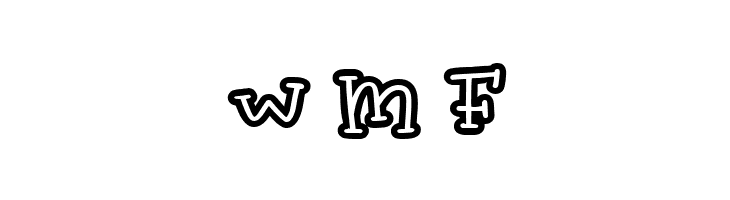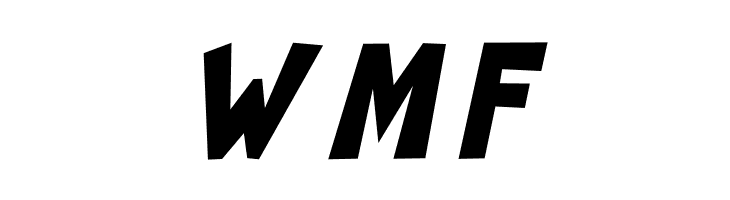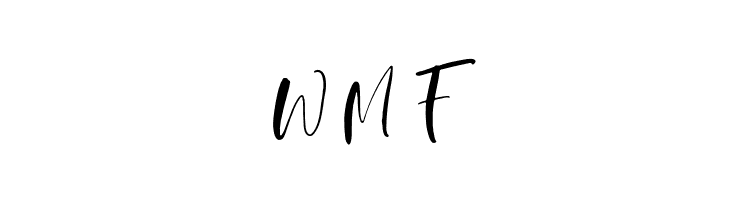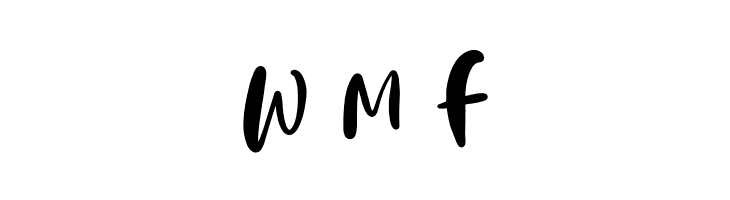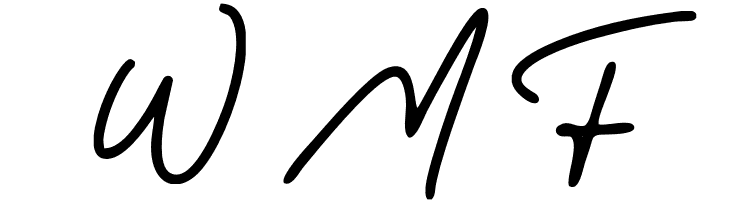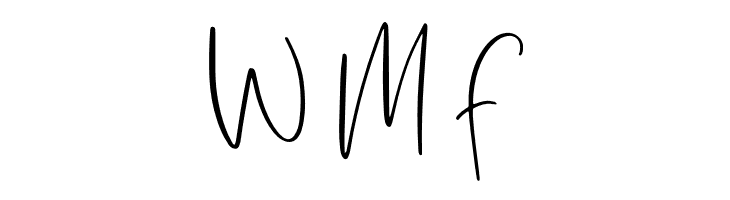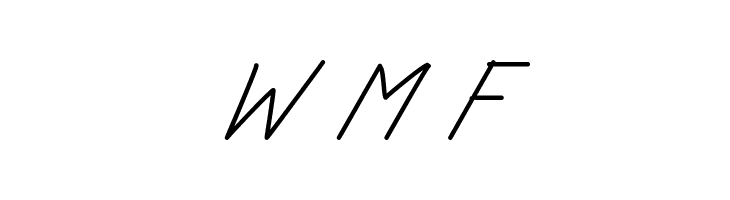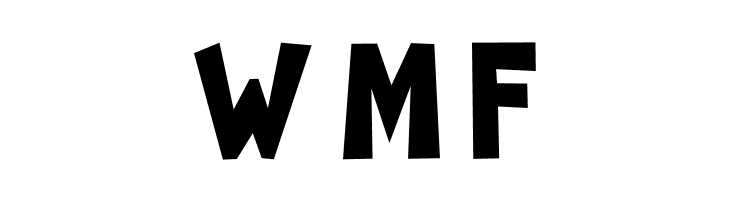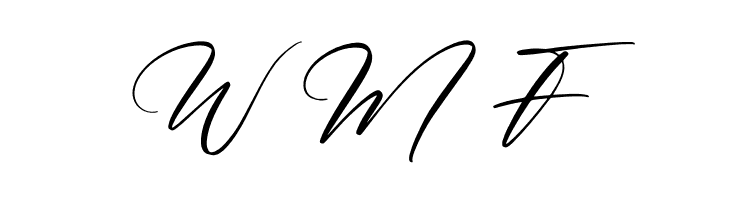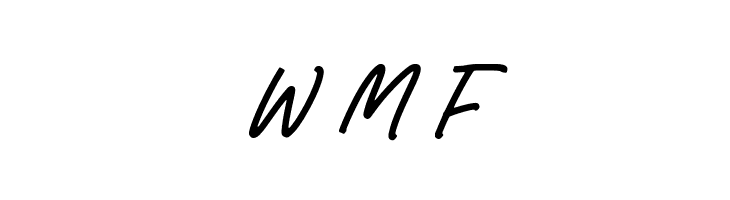
A bold, playful, and slightly italicized font with rounded characters.
A playful, bold, and cartoonish font with a thick outline and lively style.
A playful, bold font with thick, rounded strokes and a friendly appearance.
A playful, bold font with thick, uneven strokes and a whimsical style.
A bold, italic, and playful font with a dynamic slant.
A bold, italicized font with a playful and dynamic style.
A lively, flowing script font with elegant curves and connected strokes.
A bold, playful handwritten font with fluid strokes and a lively appearance.
A lively, handwritten font with fluid strokes and a playful, casual style.
Elegant handwritten script font.
A flowing, cursive script font with elegant, interconnected characters.
A playful and artistic font with bold, irregular letterforms.
A graceful script font with flowing, ornate characters.
A modern, elegant script font with flowing, connected strokes.
A dynamic, expressive handwritten script with fluid, interconnected letterforms.
A dynamic handwritten font with fluid, interconnected strokes.
An elegant and flowing script font with graceful curves and sophisticated swashes.
A playful and whimsical script font with smooth, flowing curves.
A playful, handwritten script font with a whimsical style.
A bold, fluid script font with interconnected, expressive strokes.
A relaxed, handwritten script with a friendly and informal style.
A playful, bold handwritten font with rounded, irregular letterforms.
A charming and elegant script font with flowing, cursive letterforms.
A flowing, handwritten font with elegant and modern characteristics.
Elegant, monoline handwritten script with flowing connections.
A lively, handwritten font with flowing, cursive-like strokes.
A playful, handwritten font with tall, narrow letters and fluid strokes.
A playful, Halloween-themed font with hand-drawn, brush-like letters.
Elegant handwritten script font.
A flowing, cursive script font with elegant, connected strokes.
A bold, playful handwritten font with thick strokes and rounded edges.
An elegant and flowing script font with decorative loops and swirls.
A playful, whimsical script font with a hand-drawn, cursive style.
A jagged, edgy font with sharp, thorn-like characters.
Casual, connected handwritten script with playful loops.